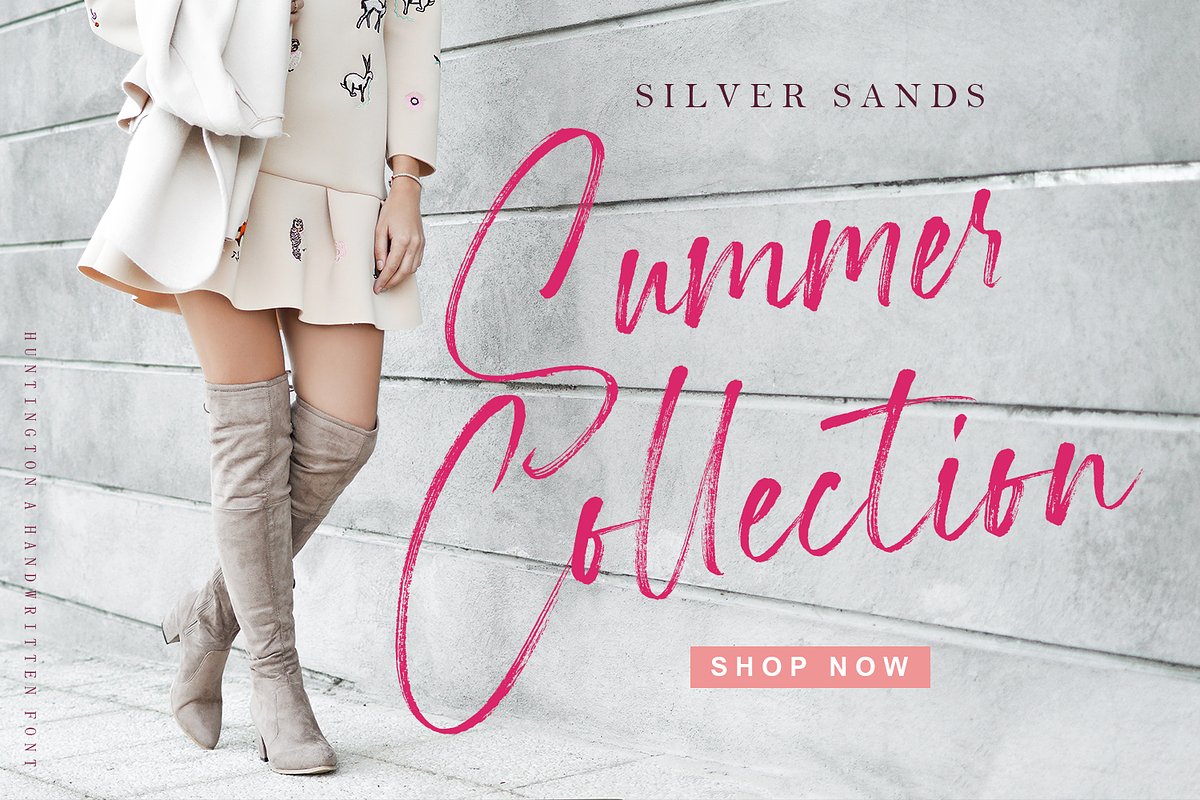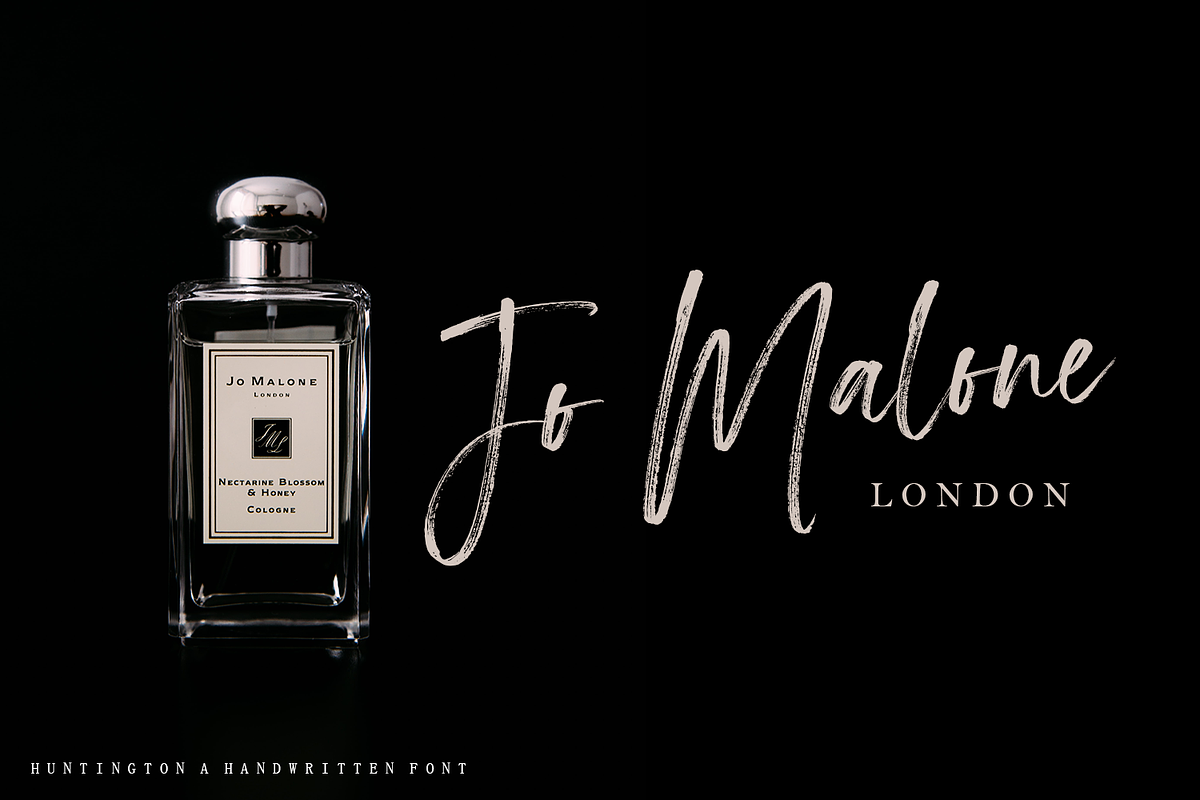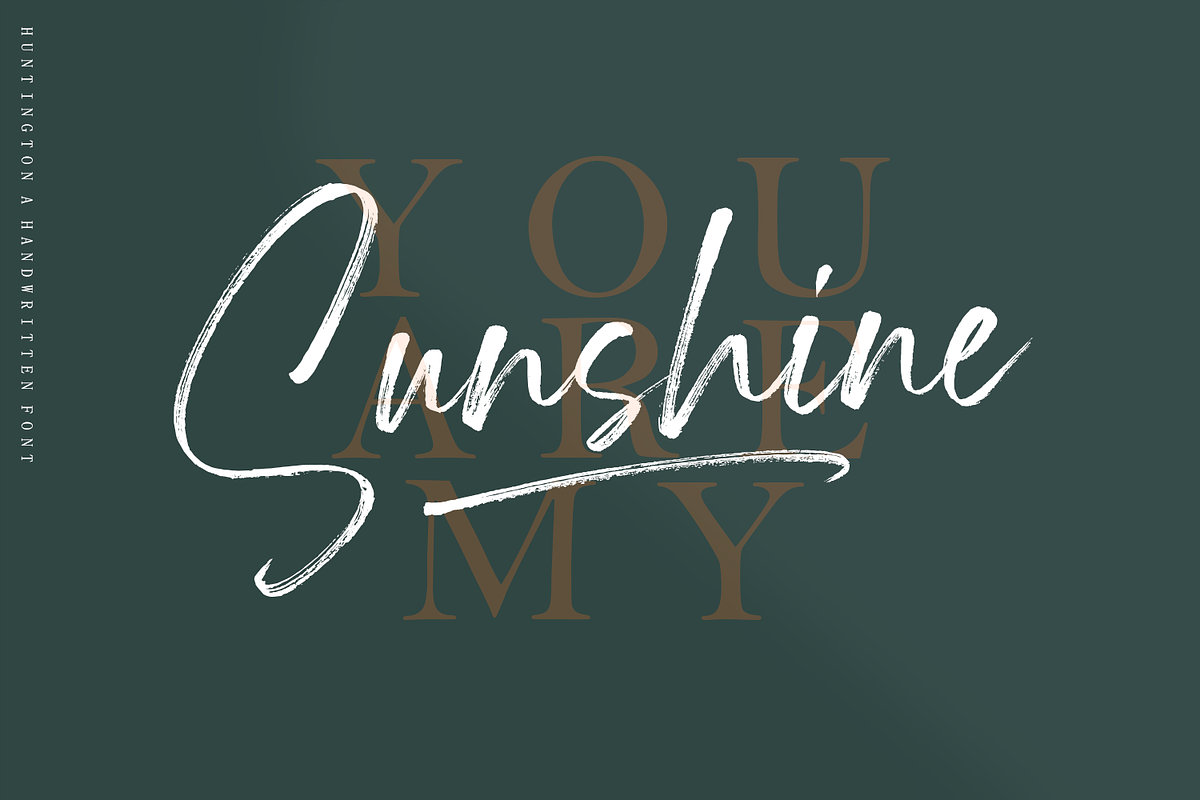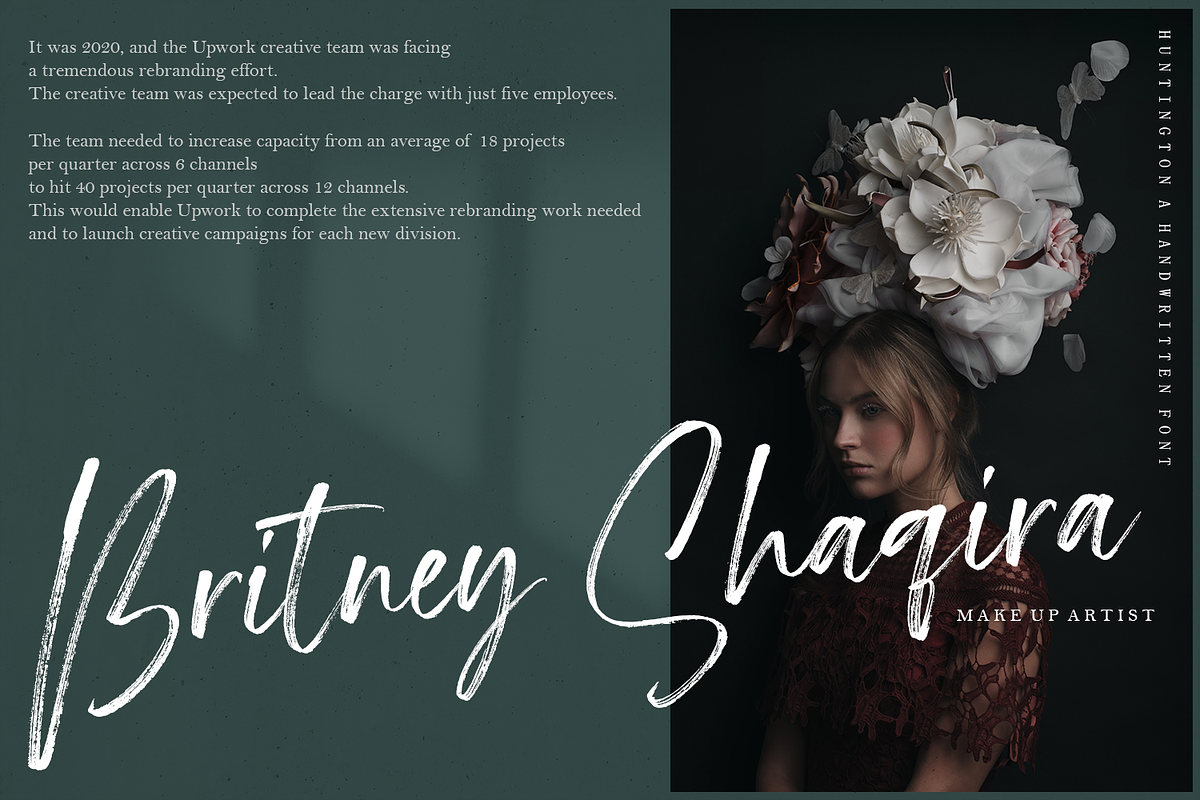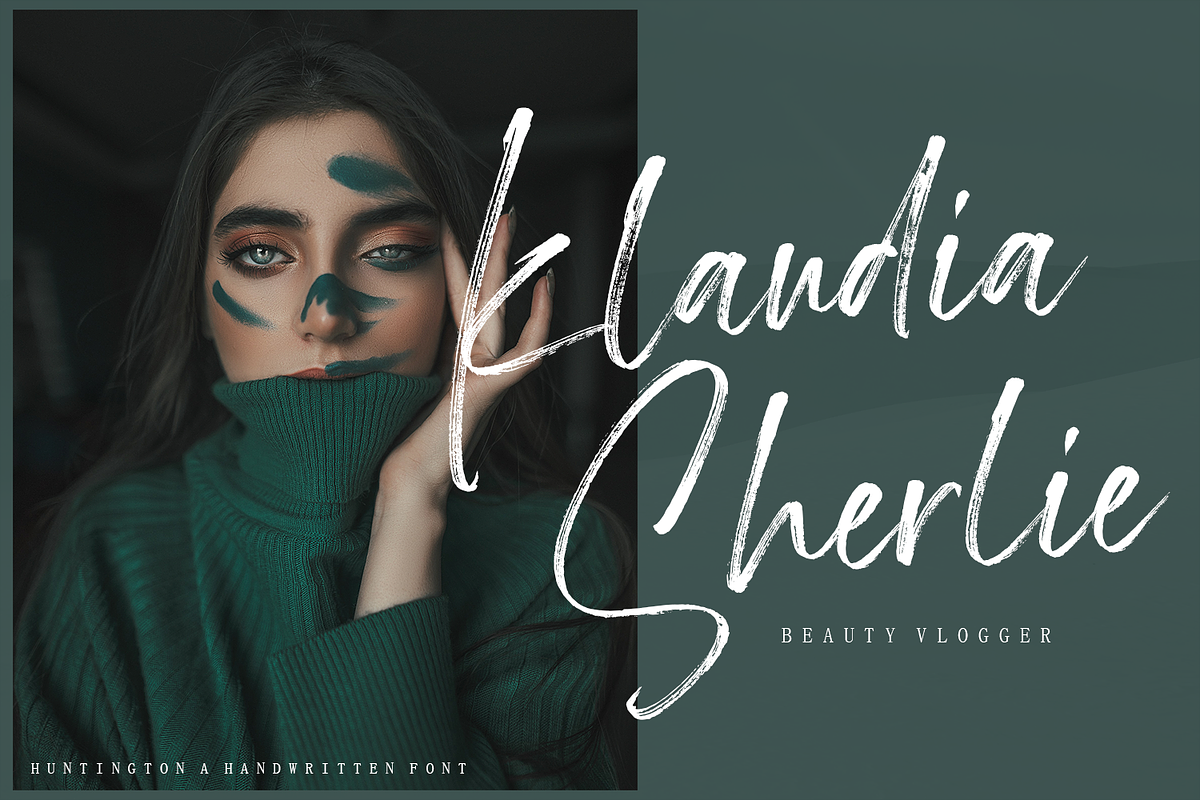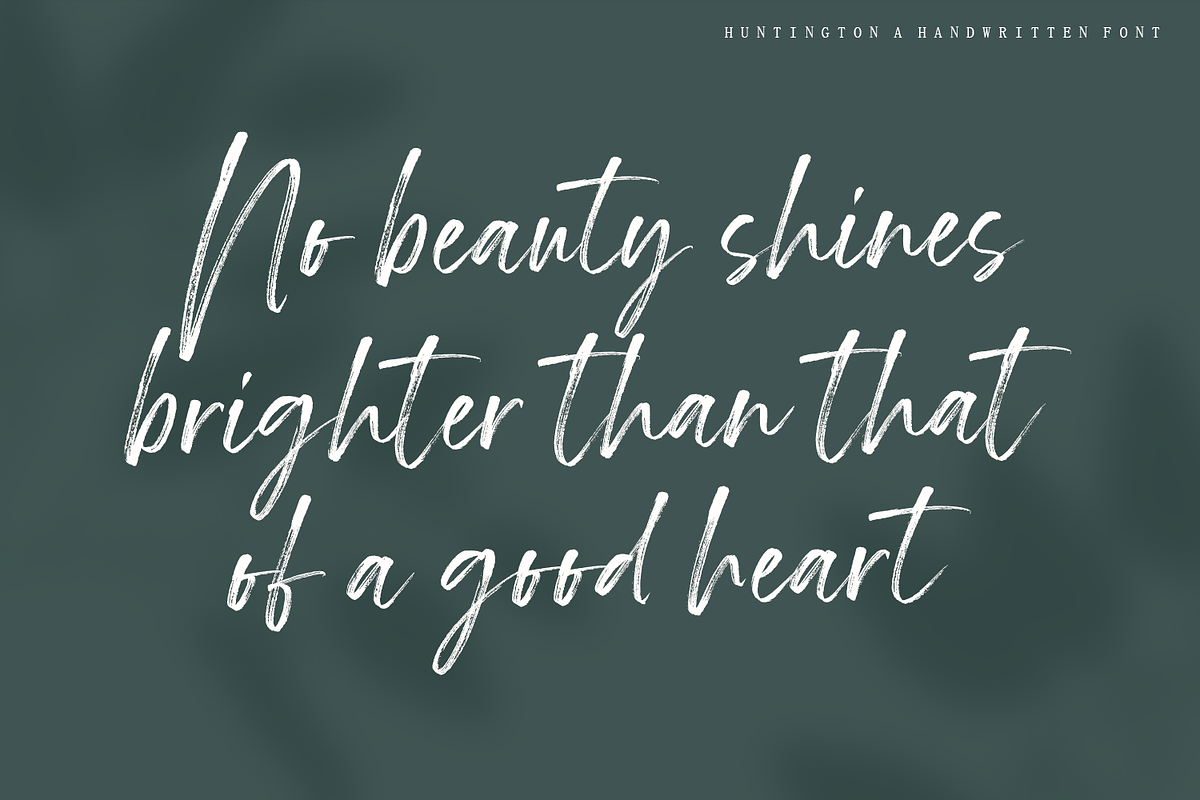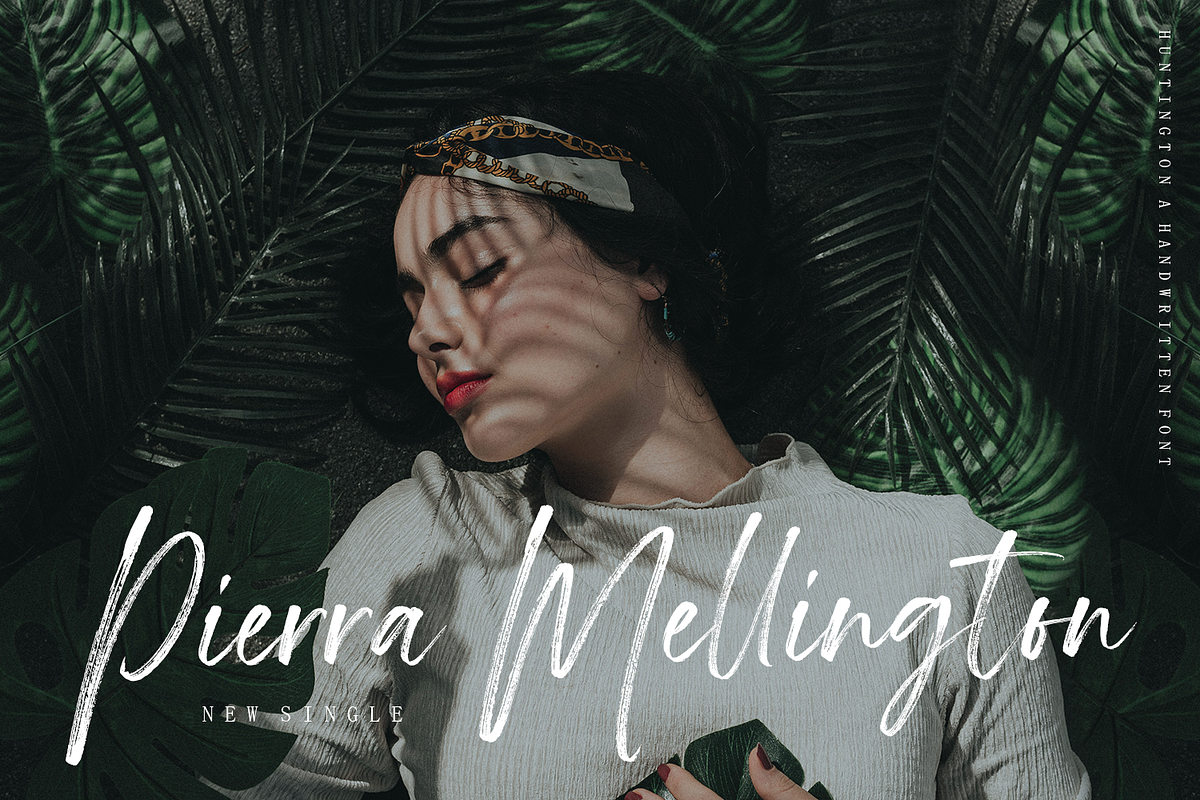
Huntington - Handwritten Font
Hello everyone, I want to introduce the Huntington a Handwritten font with a strong texture character. suitable for you who like text font type text.
Just like my font before, I made Huntington handwritten directly on paper with a coarse type brush, to produce a strong and consistent texture.
Huntington has a total of 2 alternative uppercase and lowercase letters that you can change by selecting the letter you want to change, and automatically there is an option to change the letters under the letter you selected.
Huntington can also be used for various projects such as wedding invitations, social media, logos, branding, graphic design, album covers and can be combined with various types of serif fonts to perfect the project you want to work on.